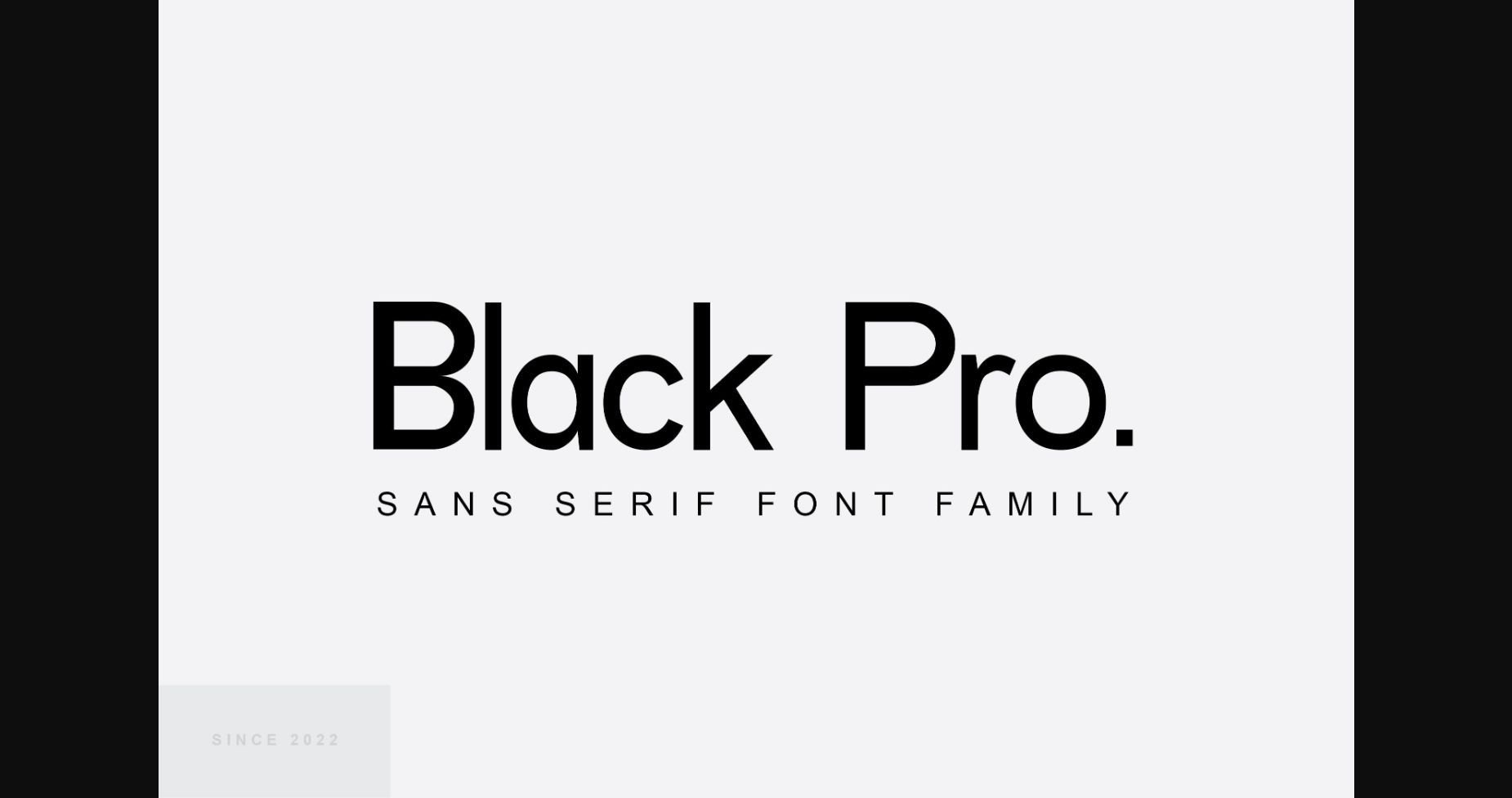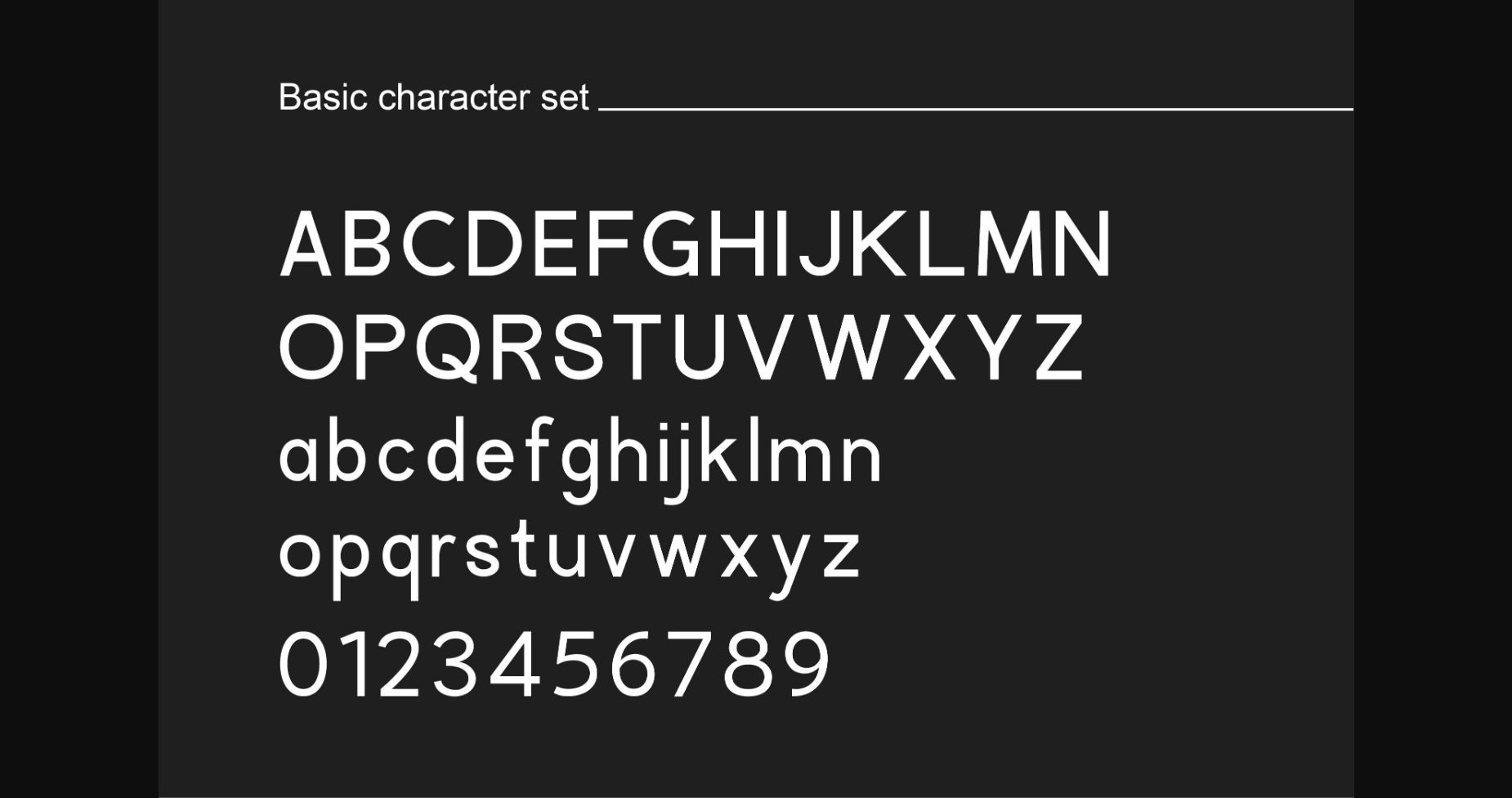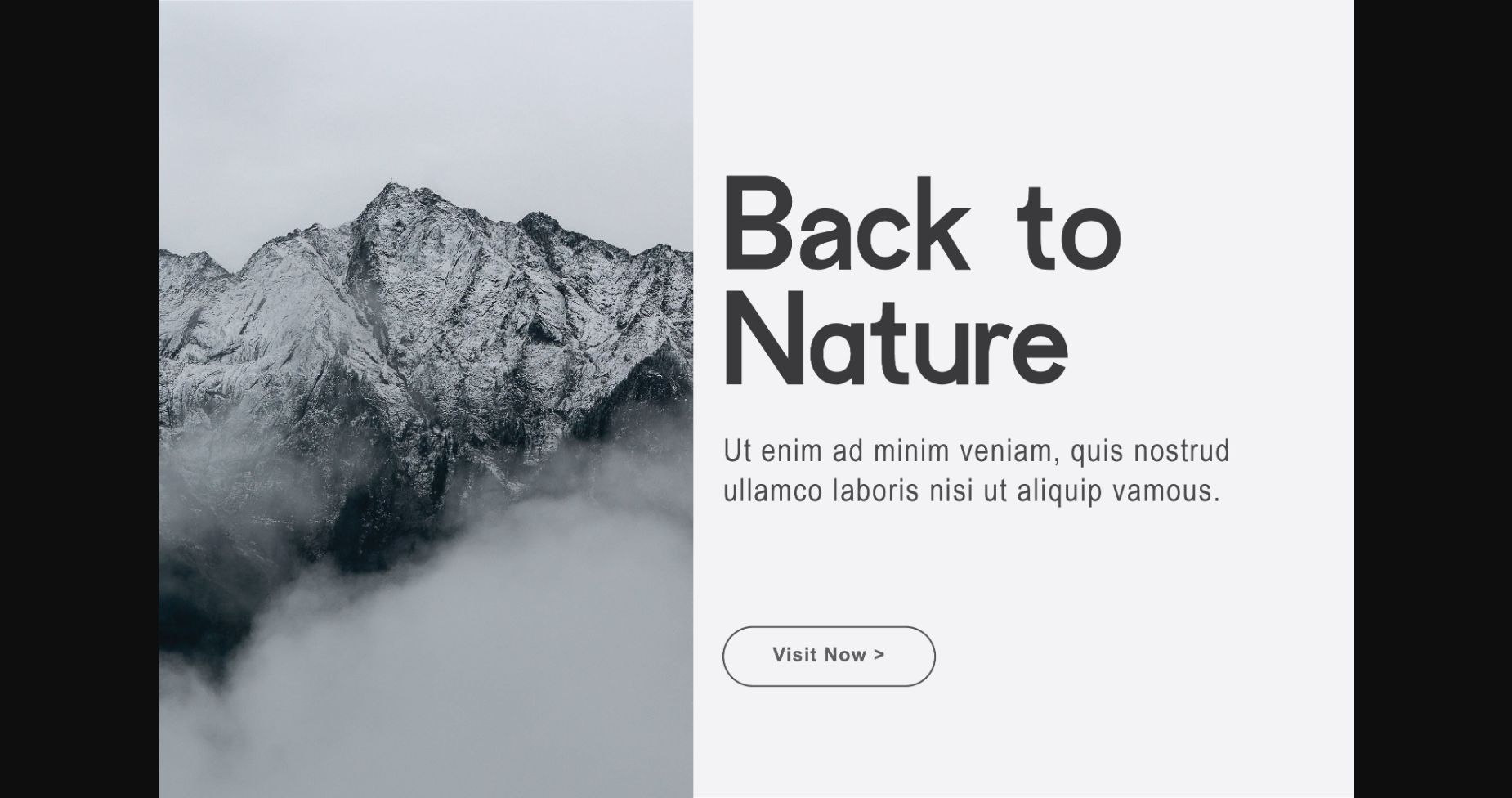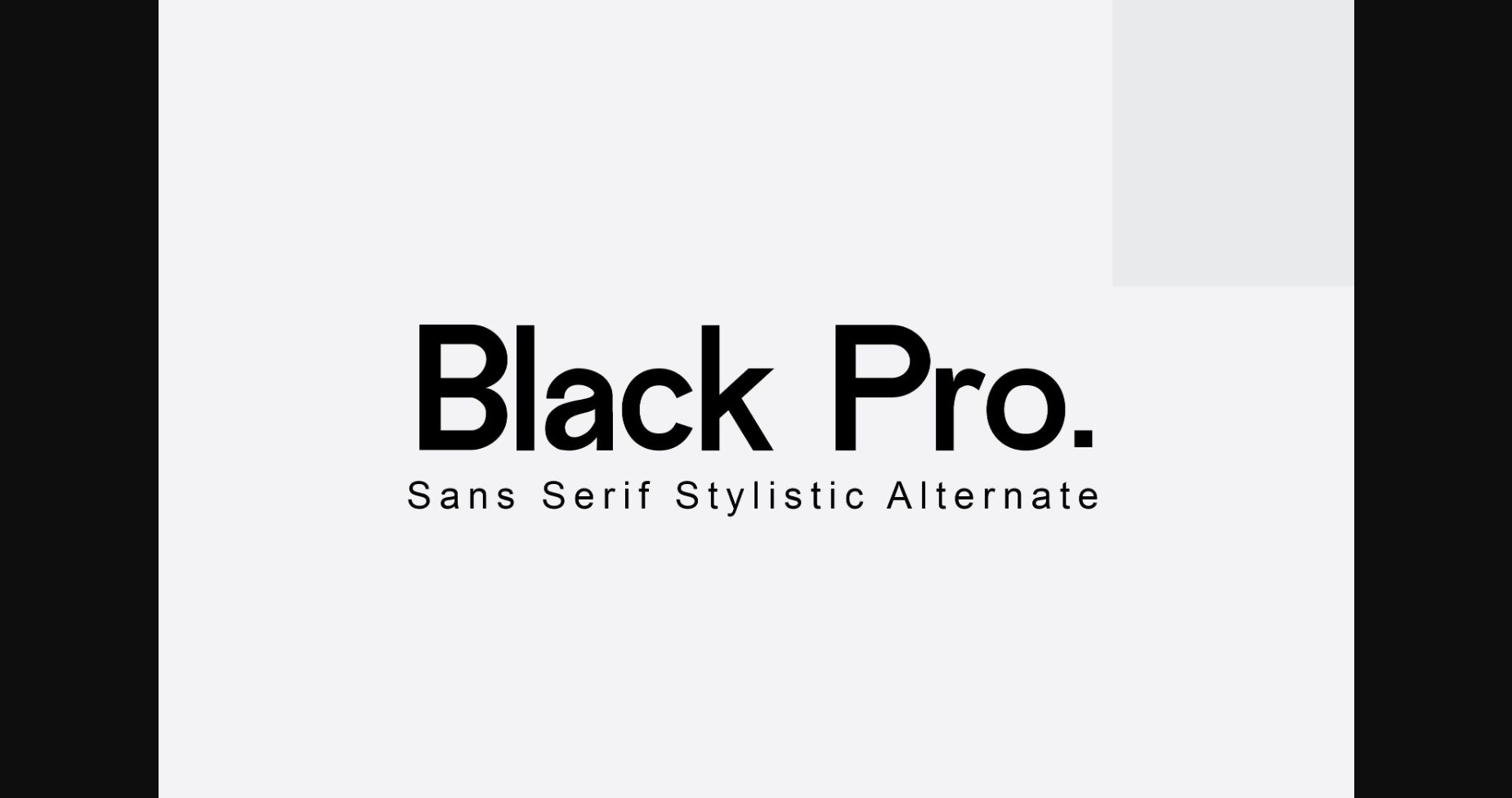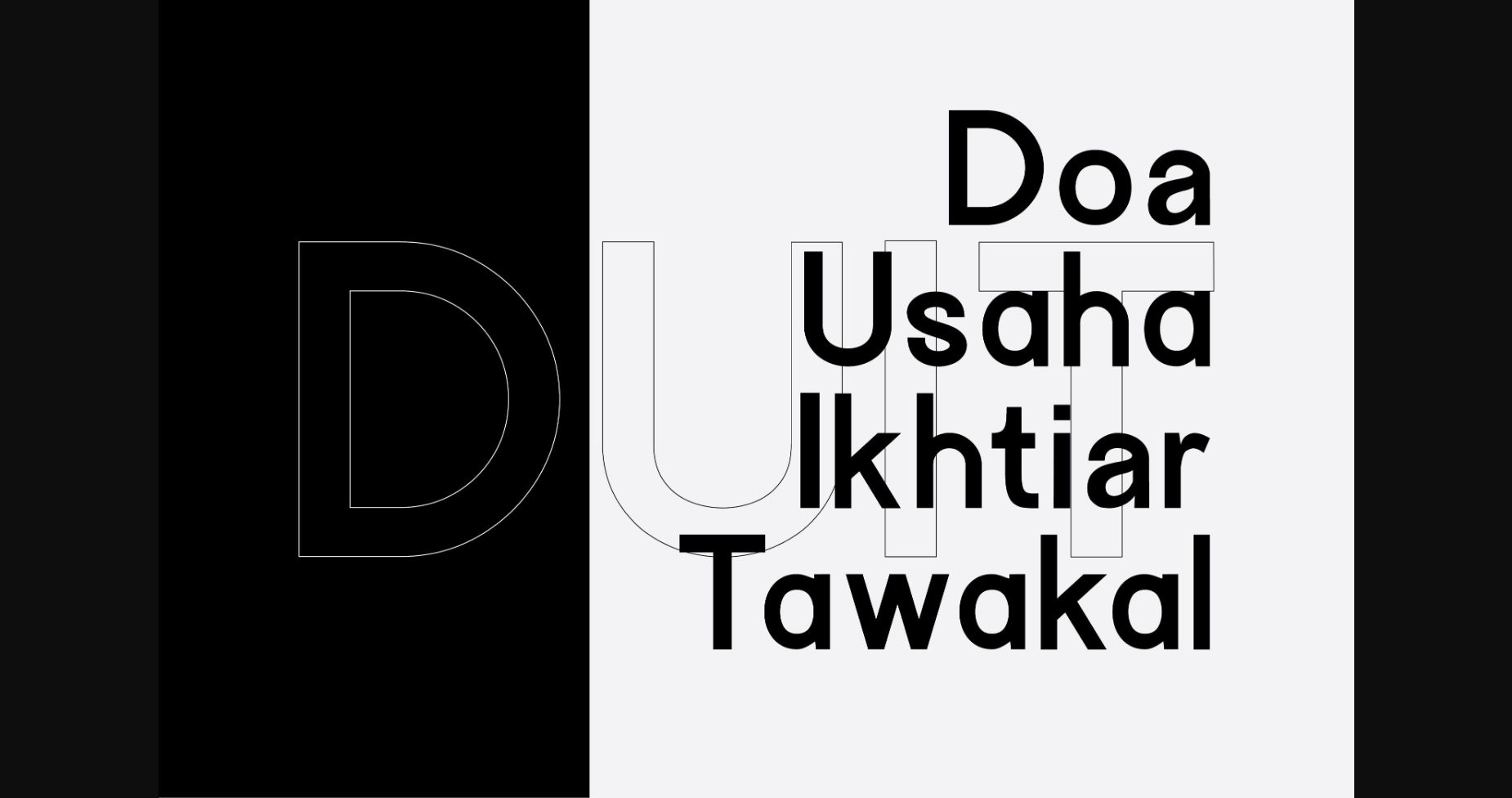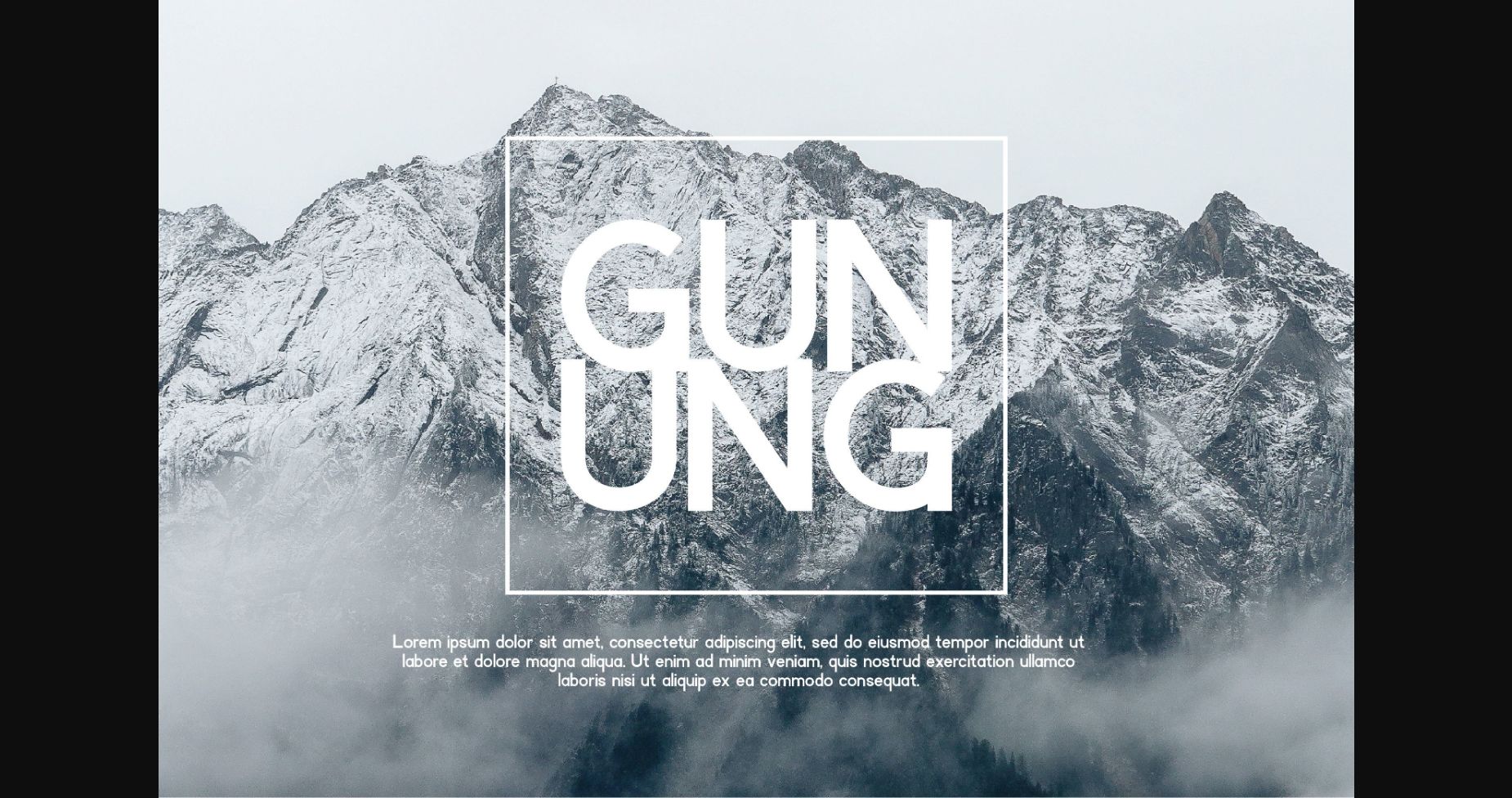
About Black Pro Font
Black Pro is an elegant and modern sans serif font. This minimalist and clean vibe can easily apply to your favorite designs such as book covers, magazines, social media posts, invitations, and so much more!